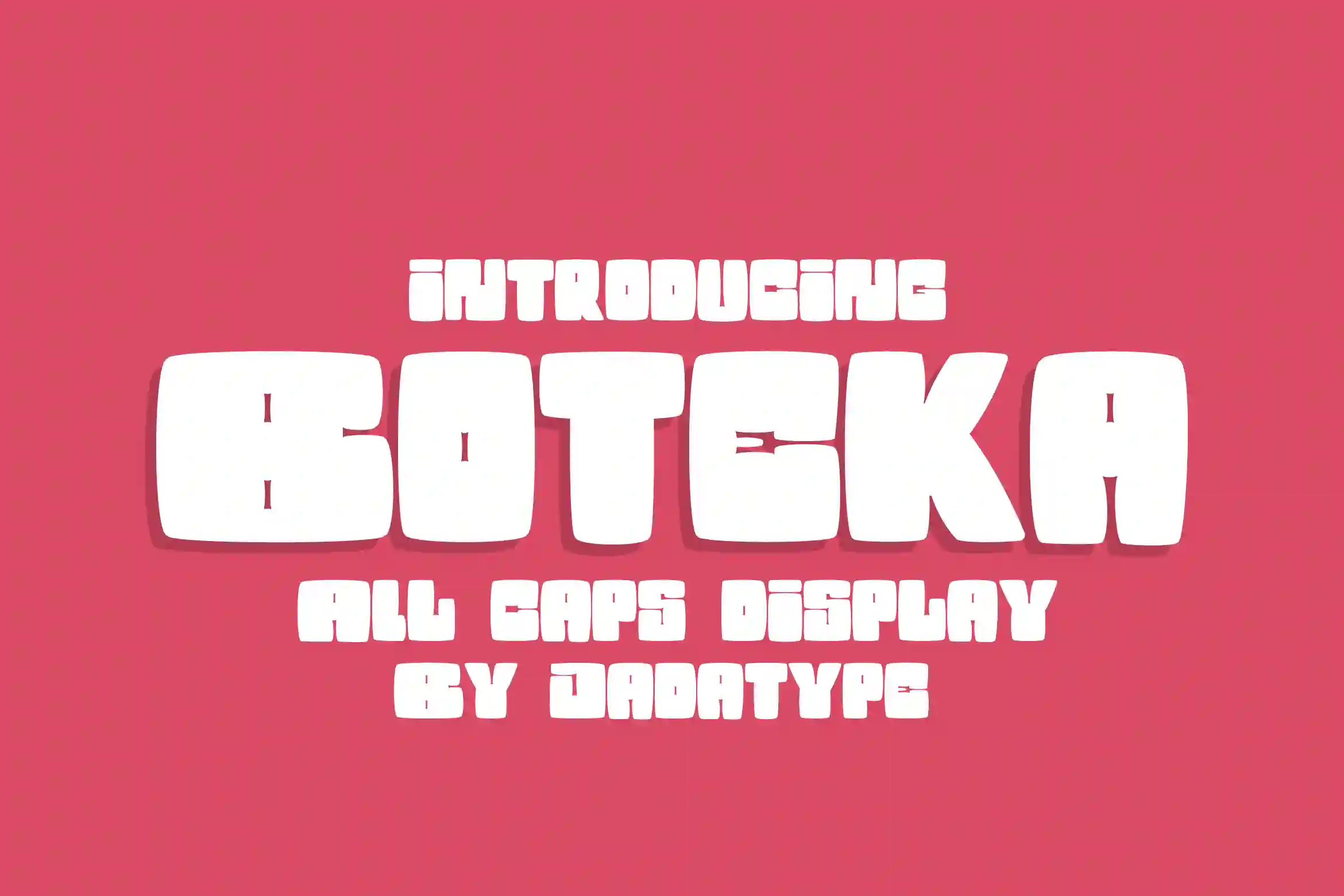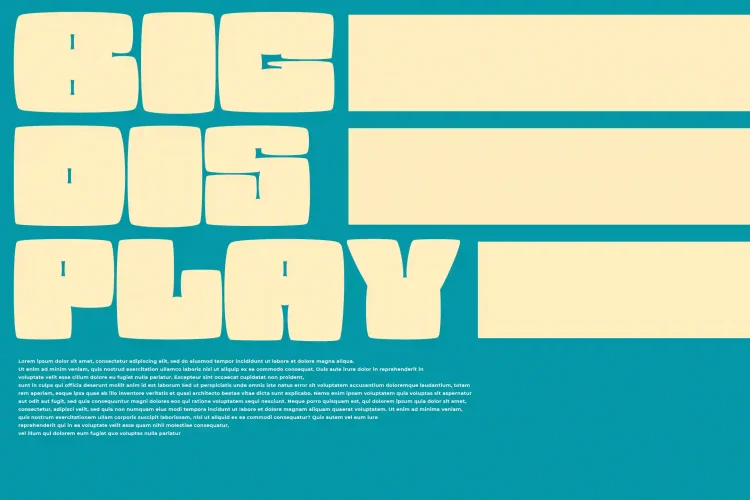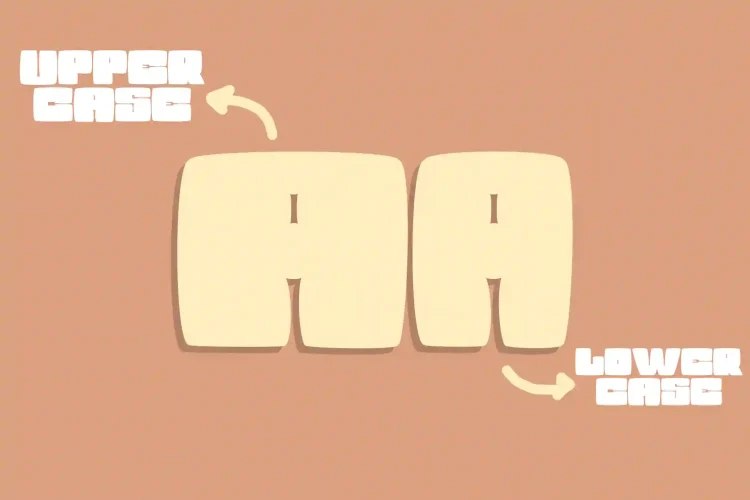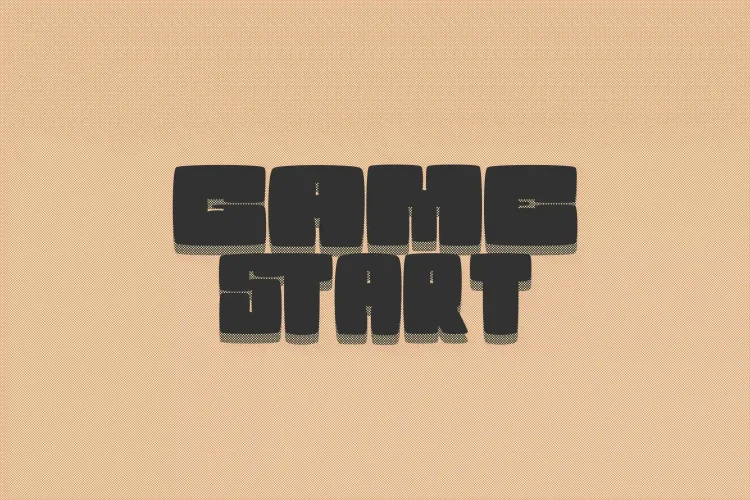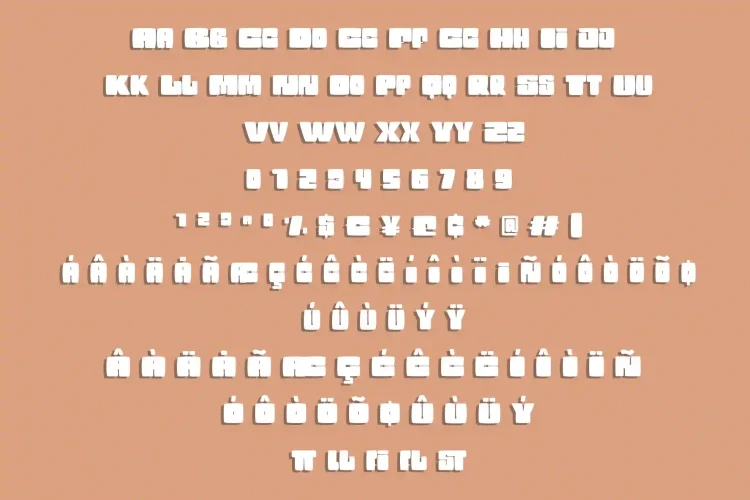
Boteka
Boteka is a display font that comes with a big playful font. suitable for tshirt, branding, social media, and so on. contains standard English letters, numbers, punctuation, and several accents that support multilingualism.
Boteka – Chunks Display